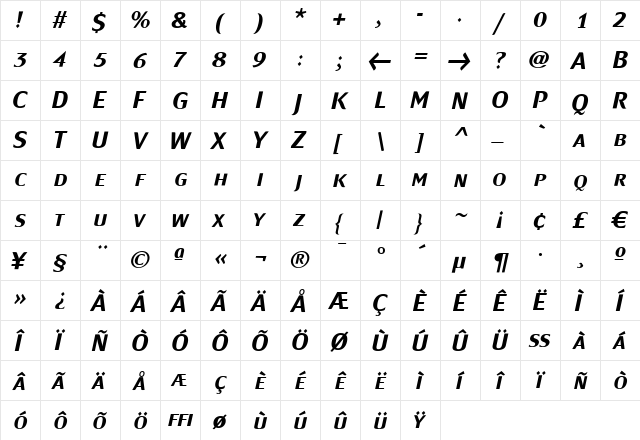
MondialPlus Bold Italic Caps Regular
Design Context for MondialPlus Bold Italic Caps Typeface
MondialPlus Bold Italic Caps is a composed and adaptable typeface that performs quietly and consistently across a wide range of design contexts. Its italic angle brings a sense of urgency and motion to the letterforms. Its bold stroke weight gives it real presence on the page.